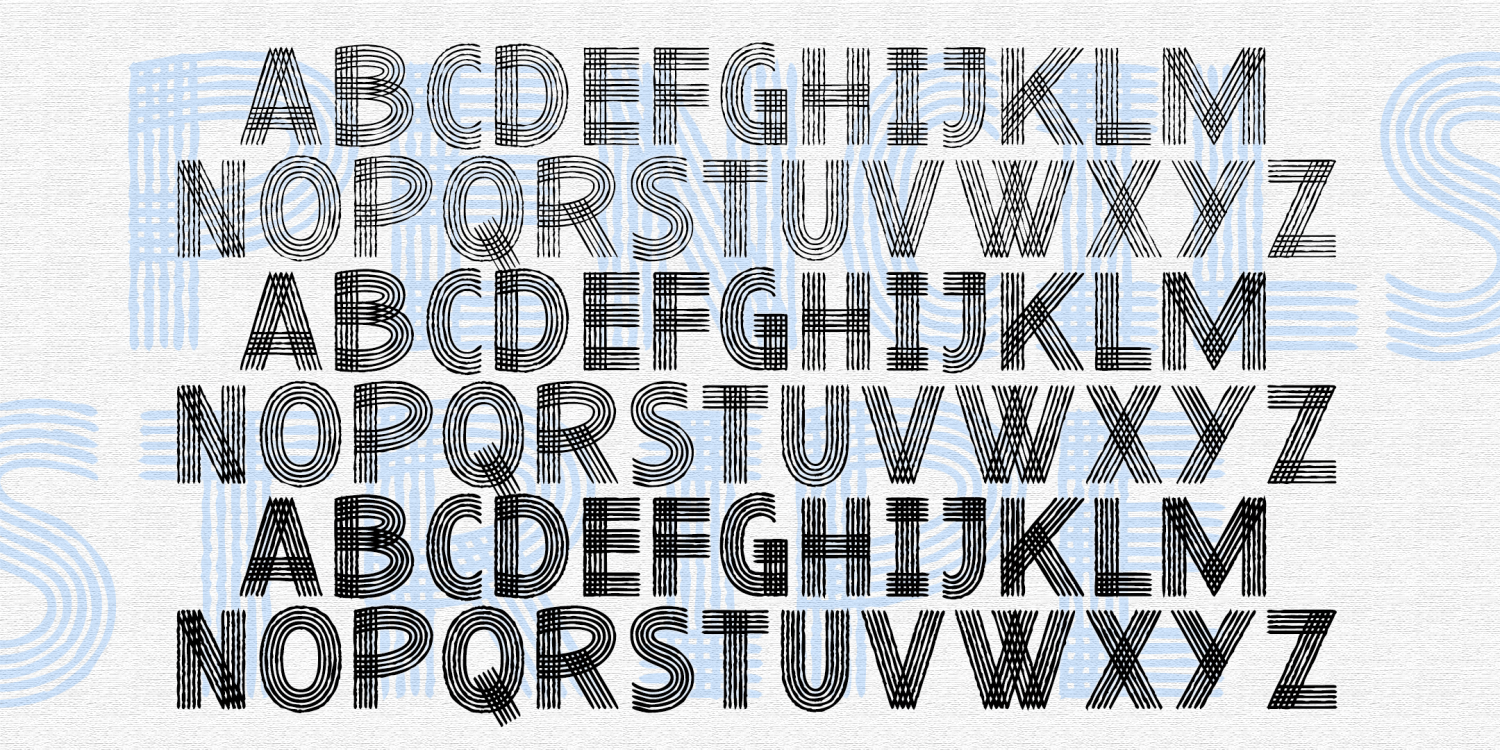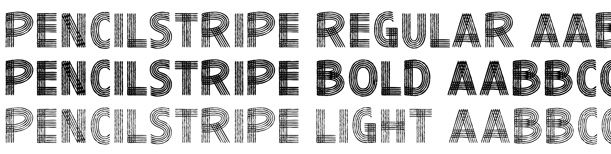
Pencilstripe
Pencilstripe is composed of 5 parallel lines, suggesting a sketch, an armature, or a musical staff. Looks great layered in contrasting colors. In three weights.